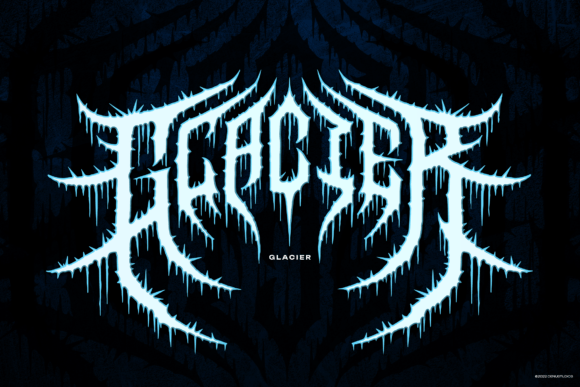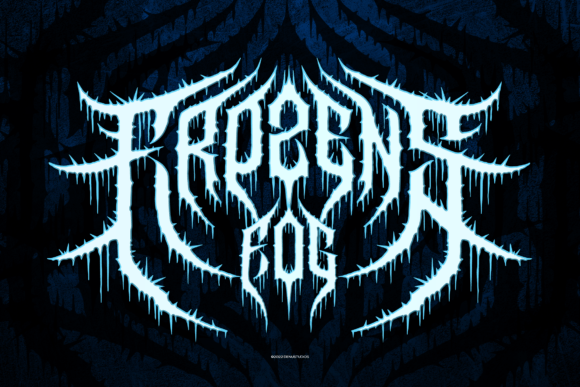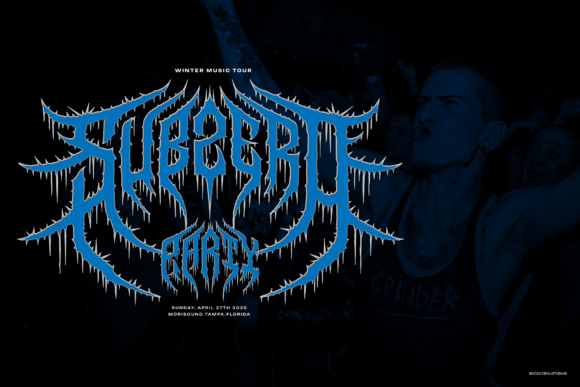
Introduction to Death Blizard Font
Death Blizard is a brutal, frostbitten death metal font that drips with icy menace and raw aggression.
With jagged edges and frost-like strokes, this font captures the essence of extreme metal aesthetics and arctic horror It’s the perfect choice for band logos, horror film titles, album covers, or any project that needs to scream with chilling power.
Key Features of Death Blizard Font
Why Choose Death Blizard Font?
Death Blizard Font offers exceptional quality and versatility, making it a valuable addition to your design toolkit. Whether you’re creating for personal projects or commercial use, Death Blizard Font delivers professional results.